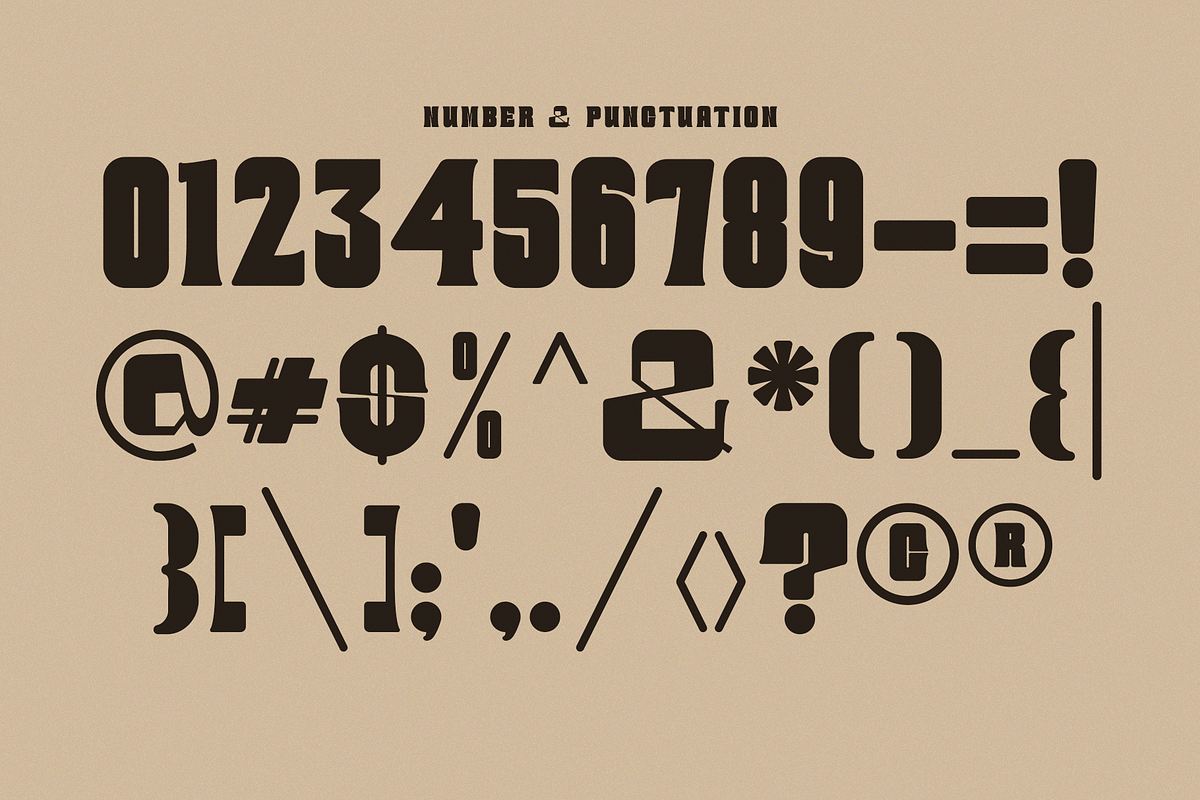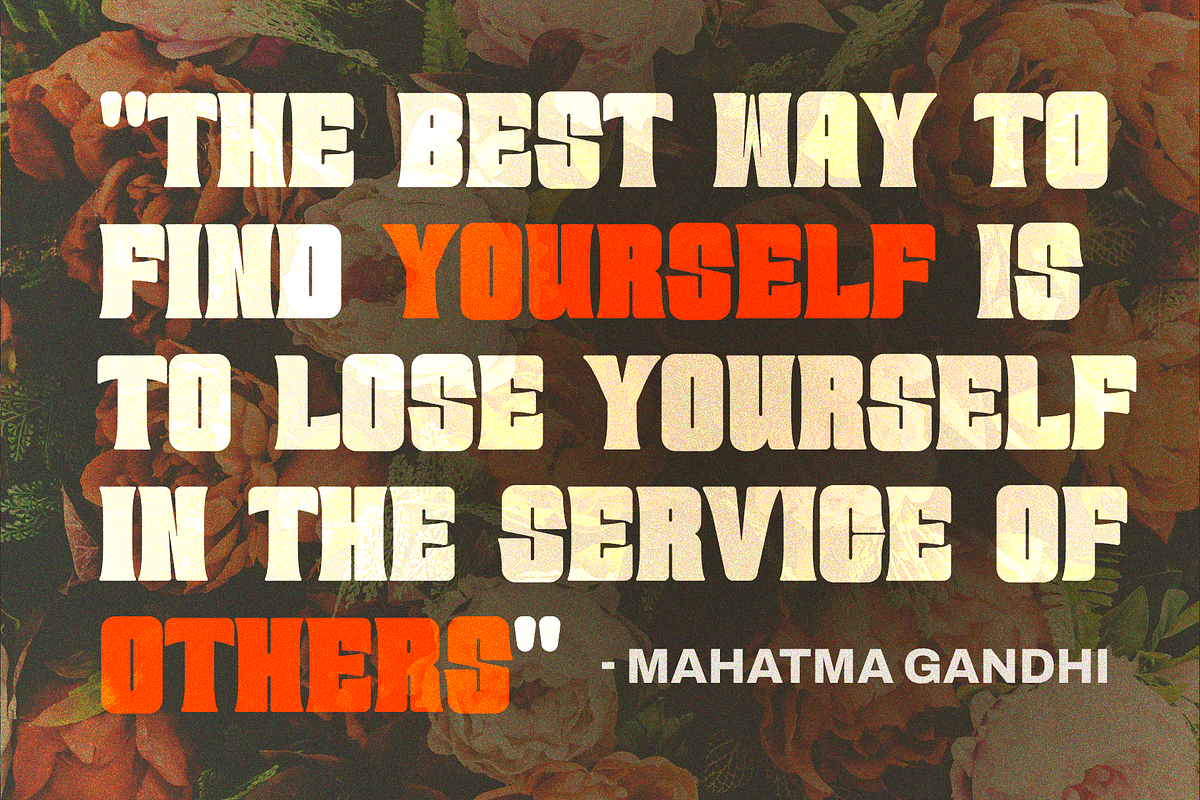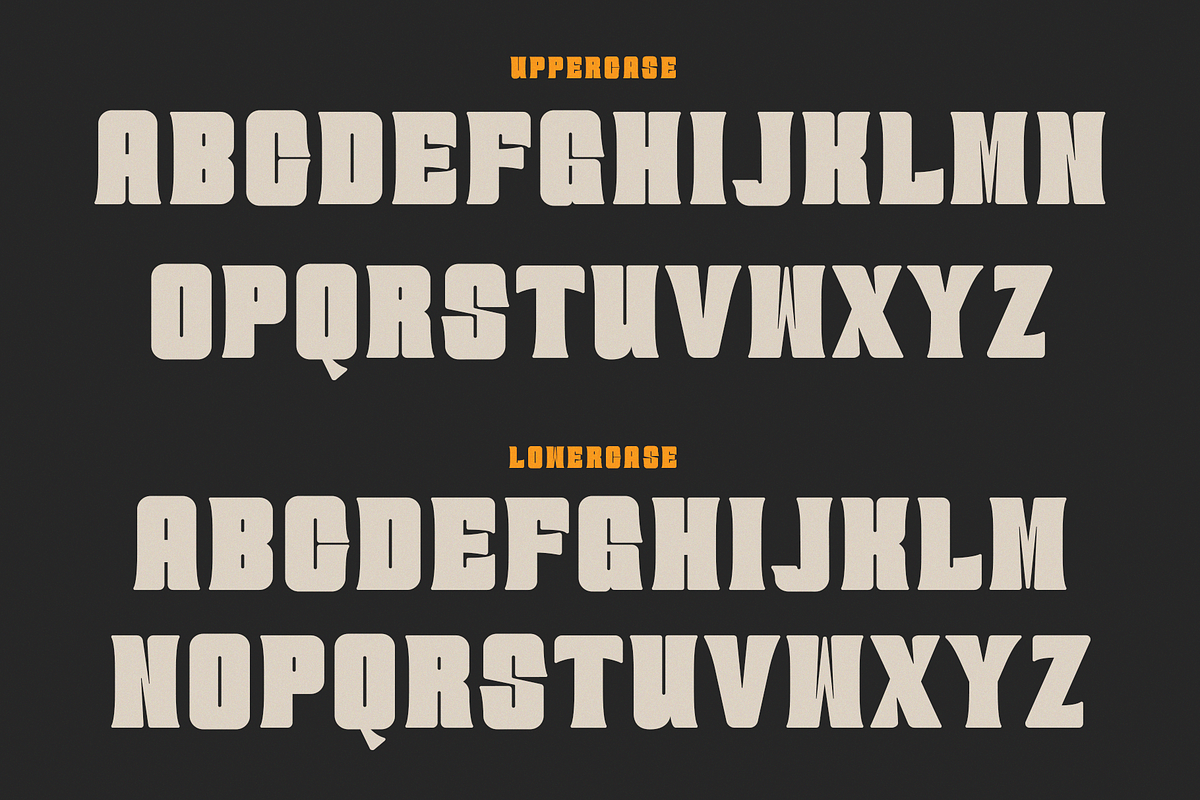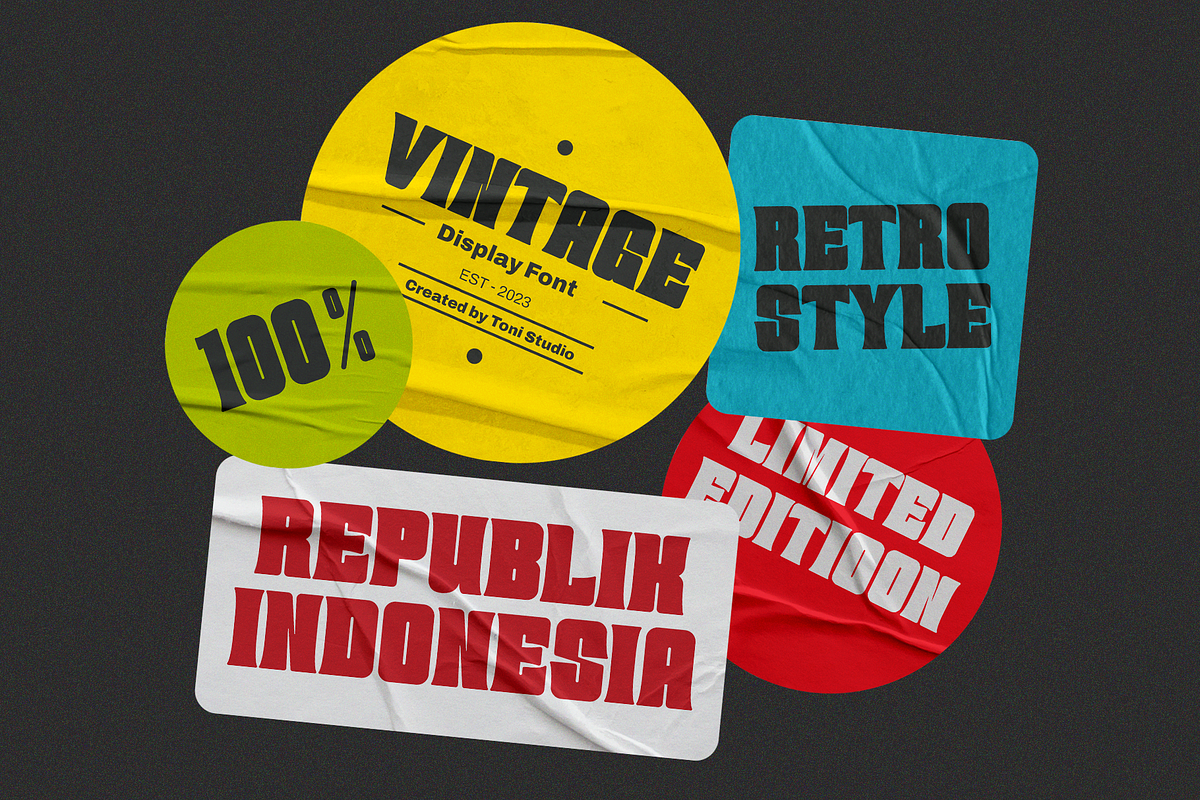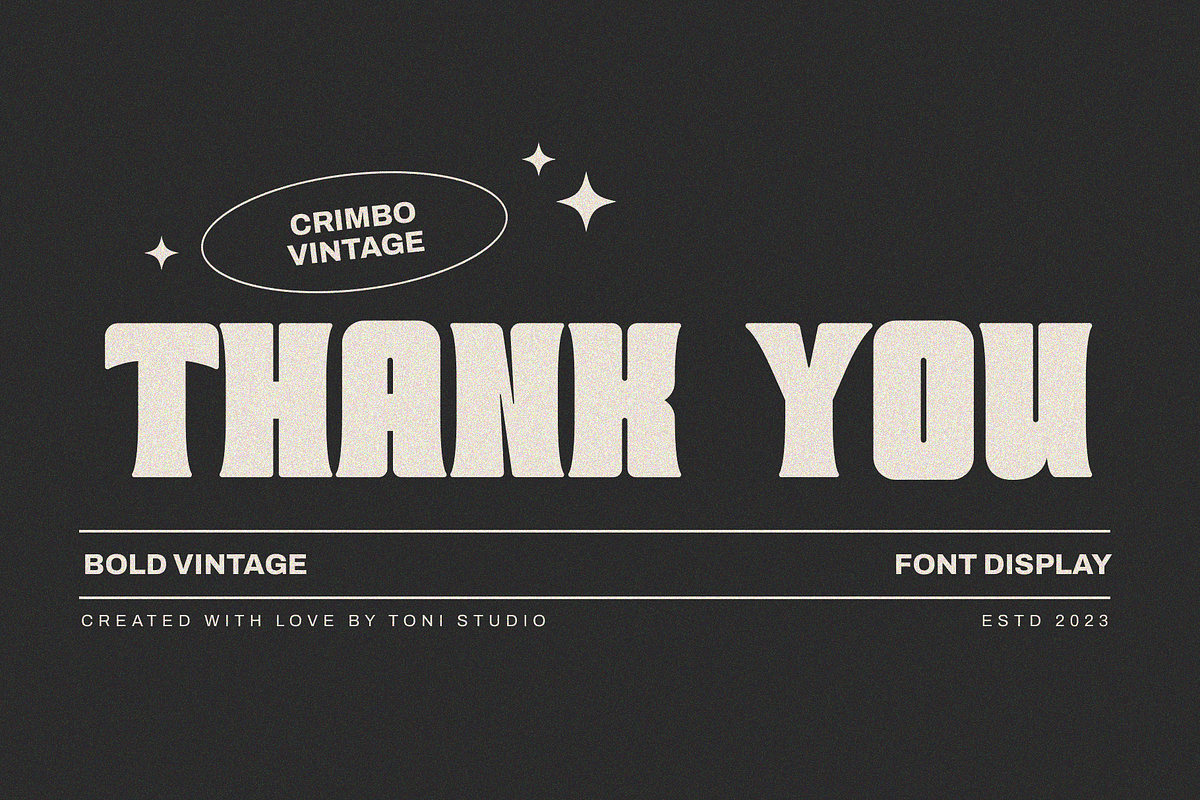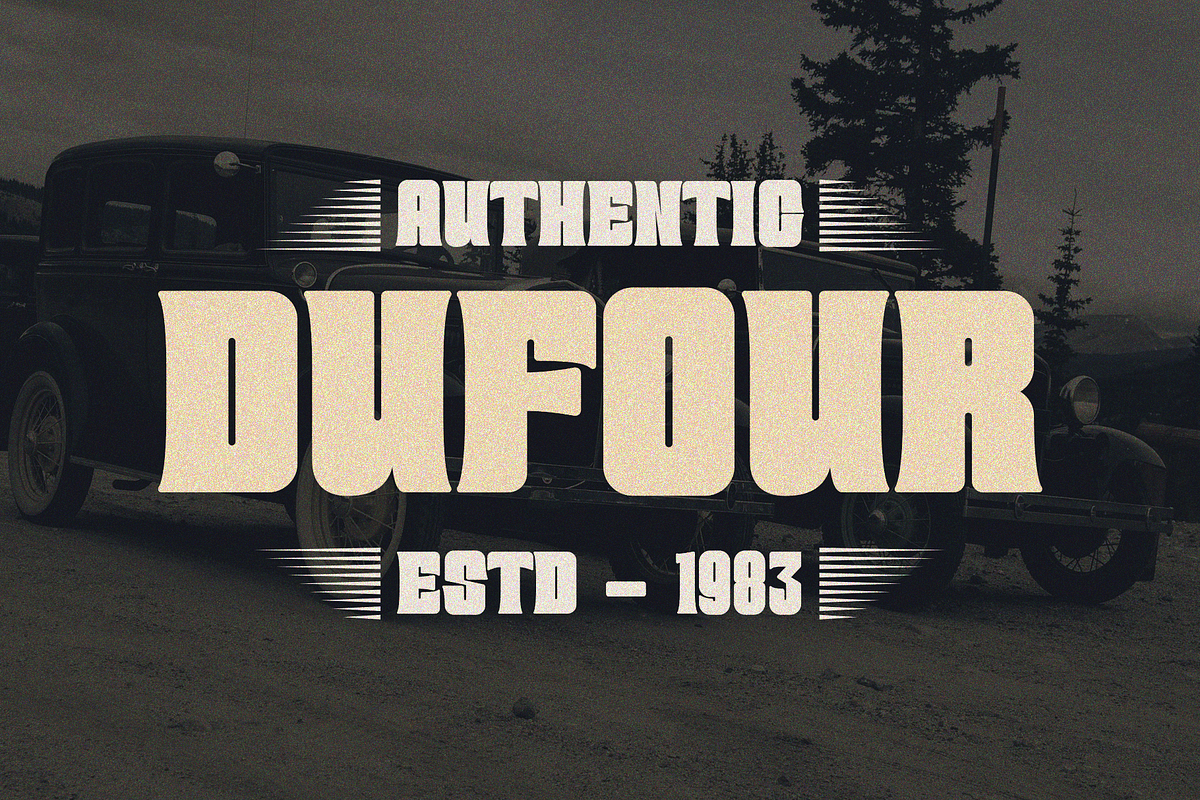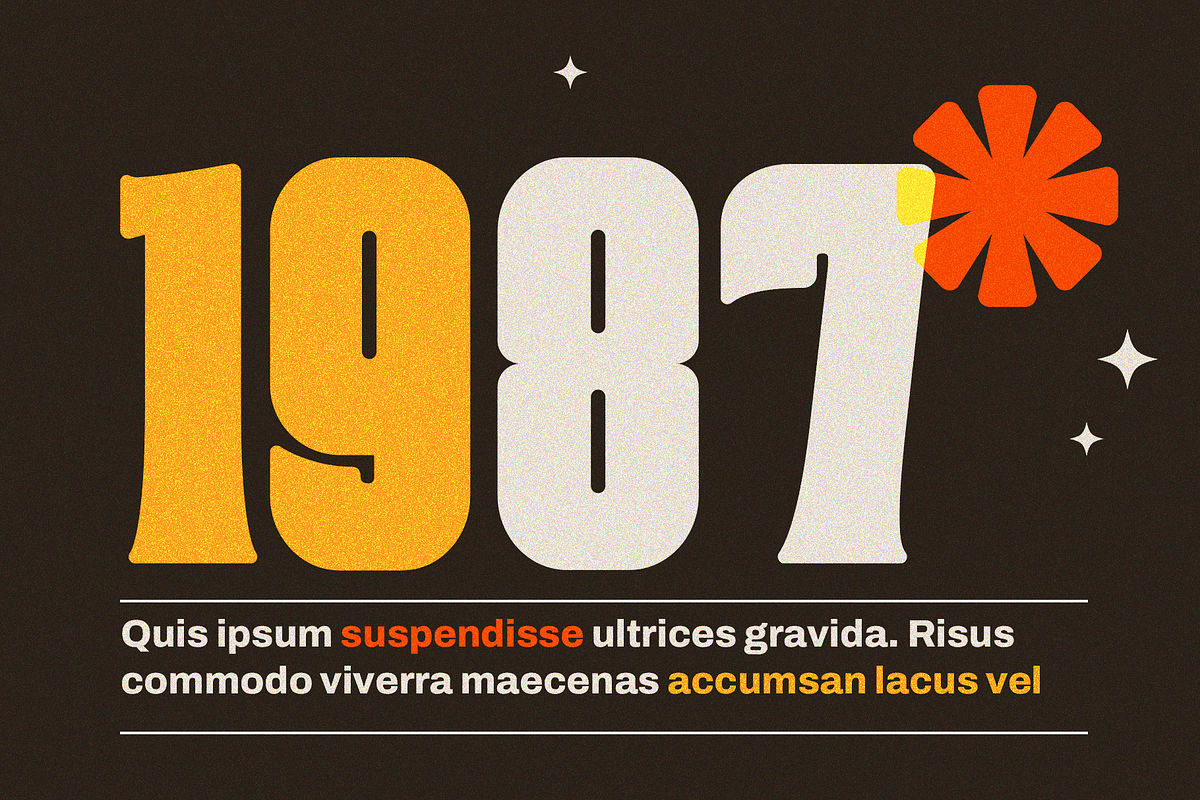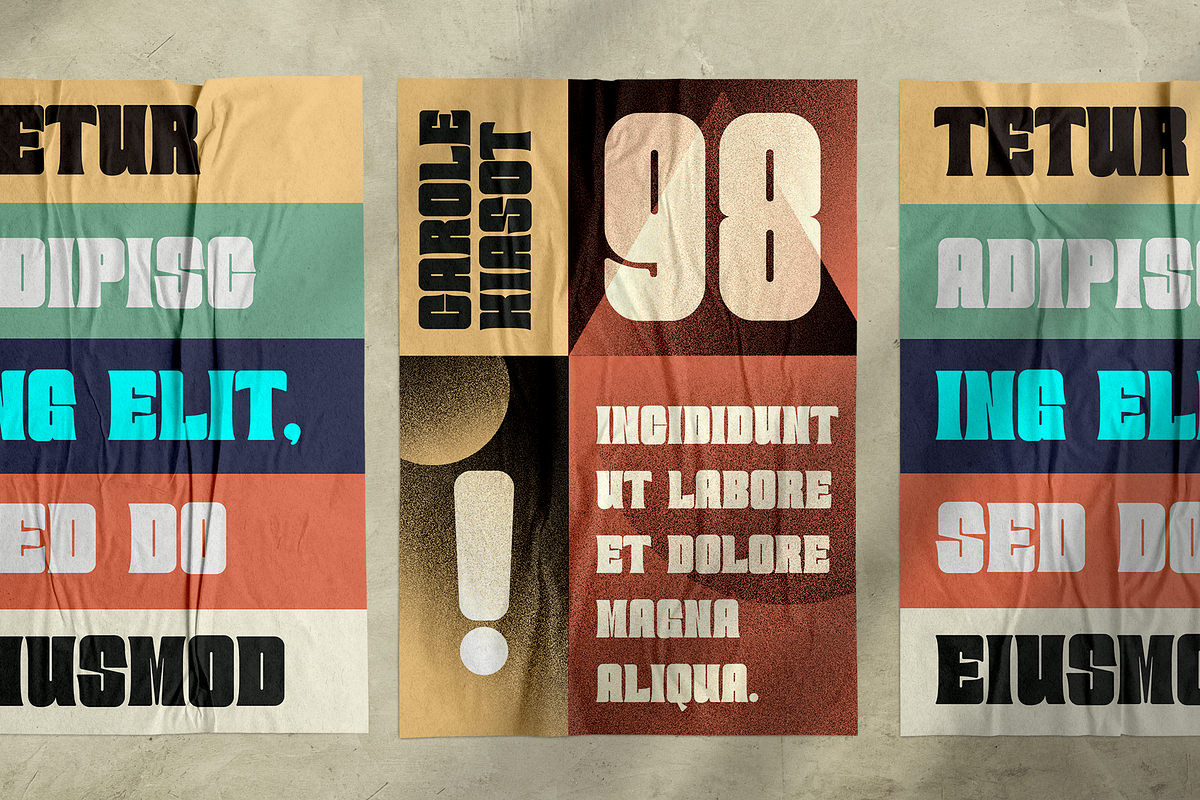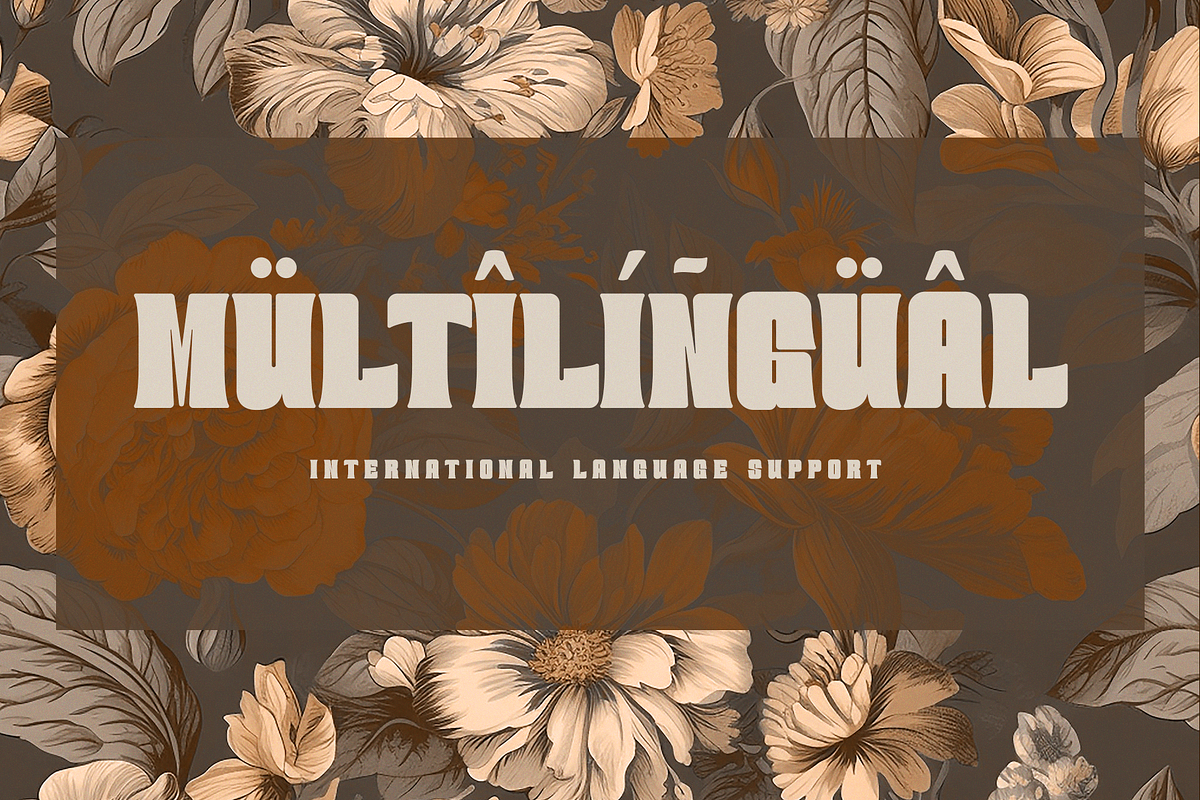
CRIMBO VINTAGE
Introducing "CRIMBO VINTAGE" is a retro, 80s-inspired font with a bold typography design, up your design game with new shapes to add to your collection! This composition is perfect for branding designs, product packaging, titles, social media, quotes, posters, book covers and more. comes in OTF and TTF formats and has multilingual support.